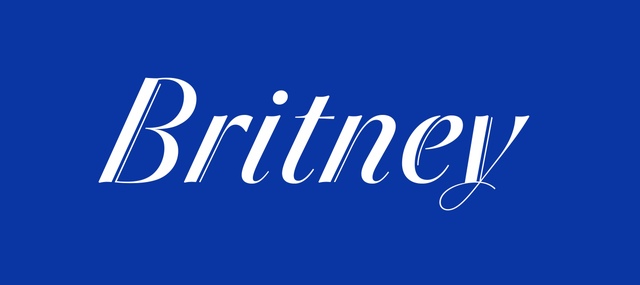
Britney Font
Britney Font is ideal for pop music venue branding, teen fashion boutique signage, dance studio promotions, youth entertainment campaigns, pop culture magazine designs, trendy social media graphics, millennial nostalgia projects, pop star tribute events, youthful lifestyle brands, and contemporary teen-focused marketing materials. This vibrant typeface brings pop culture energy and youthful spirit to any generation-defining design project.
Britney Font is exciting because it captures the infectious energy and iconic style that defined early 2000s pop culture, featuring dynamic letterforms that pulse with the same confidence and star power that made the millennium era unforgettable. Its pop culture character instantly evokes the optimistic energy, bold fashion, and cultural phenomenon that shaped an entire generation's musical and style preferences.
Britney Font family includes Light, Regular, Medium, and Bold weights with pop culture alternates, star-quality flourishes, millennium-inspired ornamental elements, and iconic symbols that enhance the pop aesthetic, providing entertainment designers with trend-setting tools for creating typography that celebrates the pop culture legacy and generational impact of millennium-era entertainment.
Pop culture designers appreciate Britney Font for its exceptional ability to evoke millennium nostalgia and connect with audiences who grew up during the golden age of pop music through carefully crafted letterforms. The font's energetic character and pop culture details create immediate associations with dance music, fashion trends, and the cultural moments that defined youth entertainment and style during the transformative millennium period.
The design philosophy behind Britney Font celebrates the empowering influence of pop culture and the generational impact of music and entertainment that shaped millennial identity and cultural expression, making it particularly effective for entertainment brands, fashion companies, and nostalgia campaigns that understand the lasting influence of millennium-era pop culture. Marketing teams working on generational projects find this font essential.
Whether used for pop music events, millennial fashion campaigns, or nostalgic entertainment promotions, Britney Font delivers the perfect combination of pop culture authenticity and generational energy. Its iconic appeal and millennium spirit make it an indispensable choice for brands that celebrate pop culture legacy, millennial nostalgia, and the transformative entertainment era that defined a generation's musical and cultural identity.